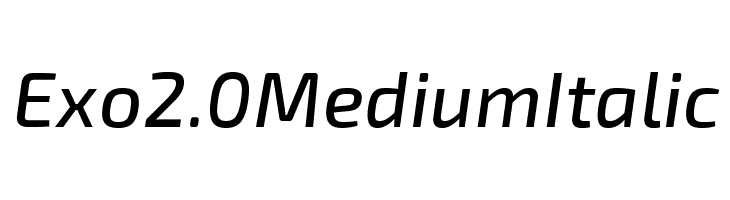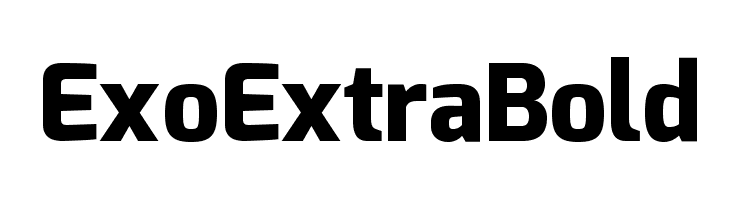
A modern, italicized font with clean, geometric lines and consistent stroke width.
A modern, semi-bold font with a clean, geometric design.
A modern, semi-bold italic font with medium contrast and a sleek, dynamic style.
A modern, thin font with clean lines and a minimalist design.
A sleek, thin, italicized font with a modern and elegant design.
A modern, geometric font with clean lines and a bold presence.
A modern, italic font with a sleek, futuristic design and consistent stroke width.
A bold, modern font with a strong geometric structure and uniform stroke width.